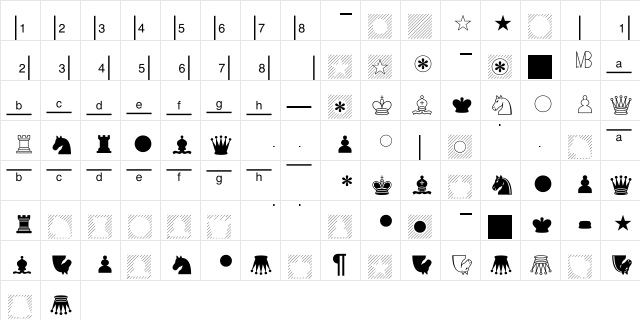
DiagramTTFritz Regular Font Preview
DiagramTTFritz Regular
DiagramTTFritz Regular Font Details
Design Context for DiagramTTFritz Typeface
DiagramTTFritz is a composed and adaptable typeface that performs quietly and consistently across a wide range of design contexts.